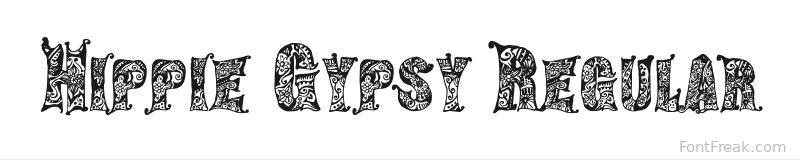
Hippie Gypsy Regular
Hippie Gypsy Regular is a captivating display font designed by Cloutierfontes, showcasing a unique combination of whimsical and artistic elements that capture the essence of a free-spirited lifestyle. This decorative typeface stands out with its intricate detailing and playful forms, making it a perfect choice for projects that require a touch of creativity and flair. The font features a medium stroke weight and moderate contrast, which enhances its legibility while maintaining an artistic appearance. The spacing between characters is thoughtfully balanced, allowing for easy reading without compromising the font's expressive style.
This versatile font is ideal for a variety of use cases. It's particularly well-suited for wedding invitations, where its charming style adds a romantic and bohemian touch. Additionally, Hippie Gypsy Regular can elevate movie posters, especially for films that explore themes of adventure, love, or self-discovery. Restaurant menus can also benefit from this font's unique character, particularly for establishments that emphasize a laid-back, eclectic atmosphere. Content creators and graphic designers will find this font valuable for social media graphics and promotional materials, providing a distinctive visual identity that resonates with audiences.
What truly sets the Hippie Gypsy Regular font apart is its ability to evoke a sense of nostalgia and freedom, reminiscent of the vibrant culture of the hippie movement. Whether you're crafting an eye-catching design or seeking to convey a laid-back vibe, this font's artistic charm makes it a standout choice for any creative endeavor.